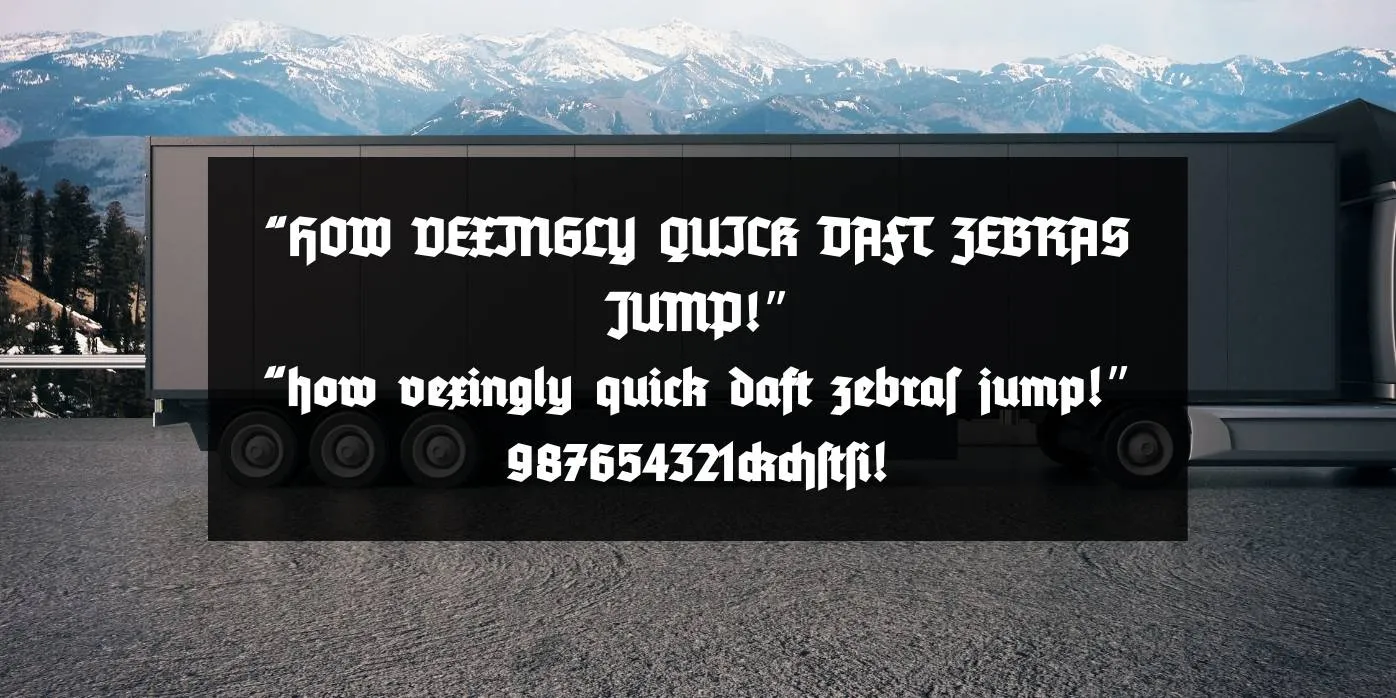
Tannenberg Font
Today, we are going to introduce Tannenberg Font which was designed by Dieter Steffmann. This typeface belongs to the gothic family.  Tannenberg is an old-fashioned blackletter typeface that was very popular in the early 20th century. This font was named after the Battle of Tannenberg, which took place in 1410. The battle was between the Teutonic Order and the Kingdom of Poland.
It was a victory for the Teutonic Order, and as a result, the font is sometimes associated with German nationalism. You can also use ultra font which is closest to this font family. This classy font is characterized by its ornate letters and sharp details. It is perfect for headlines and other display purposes.